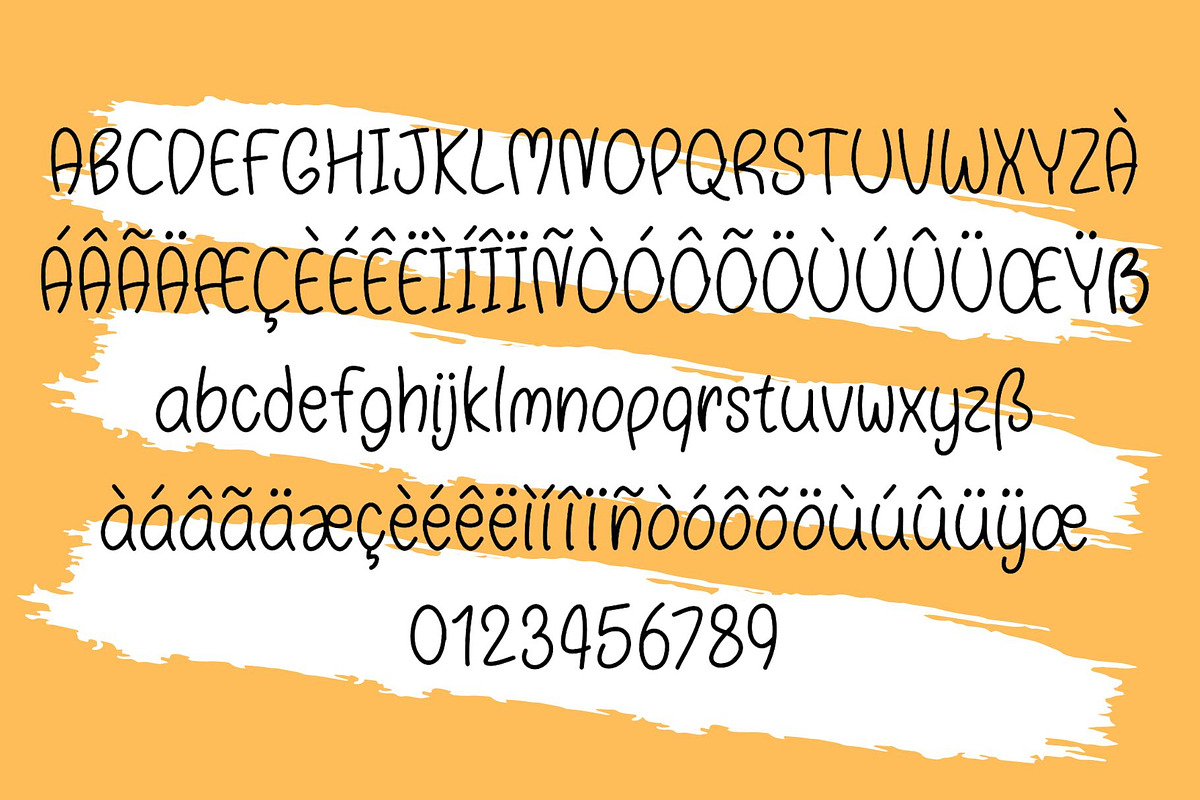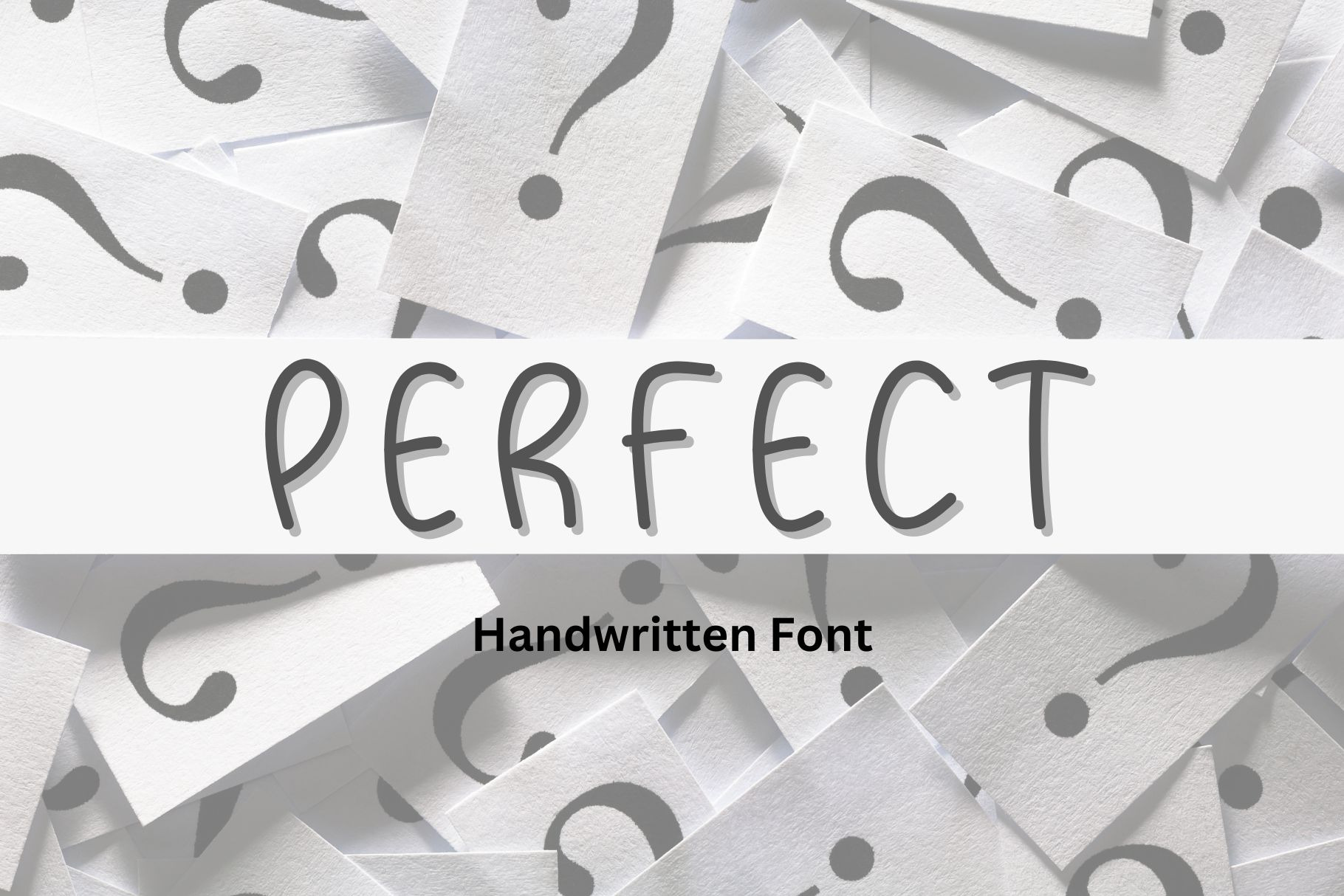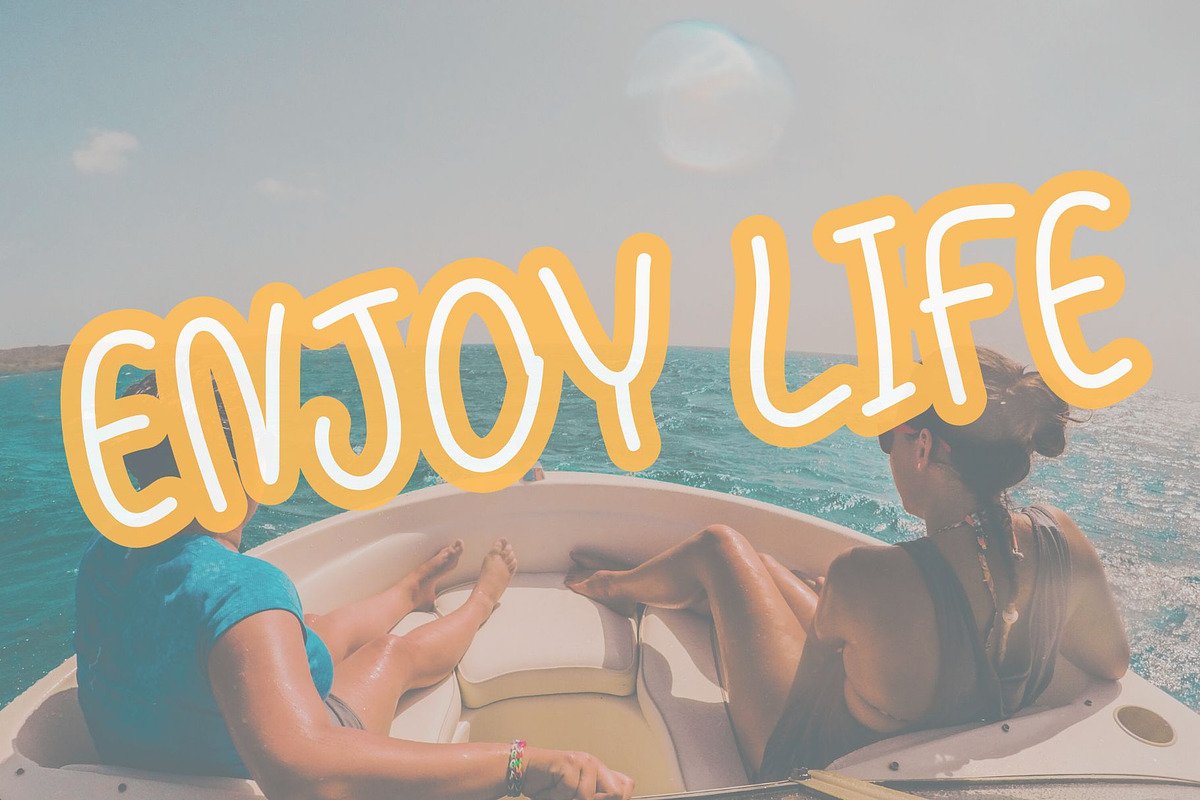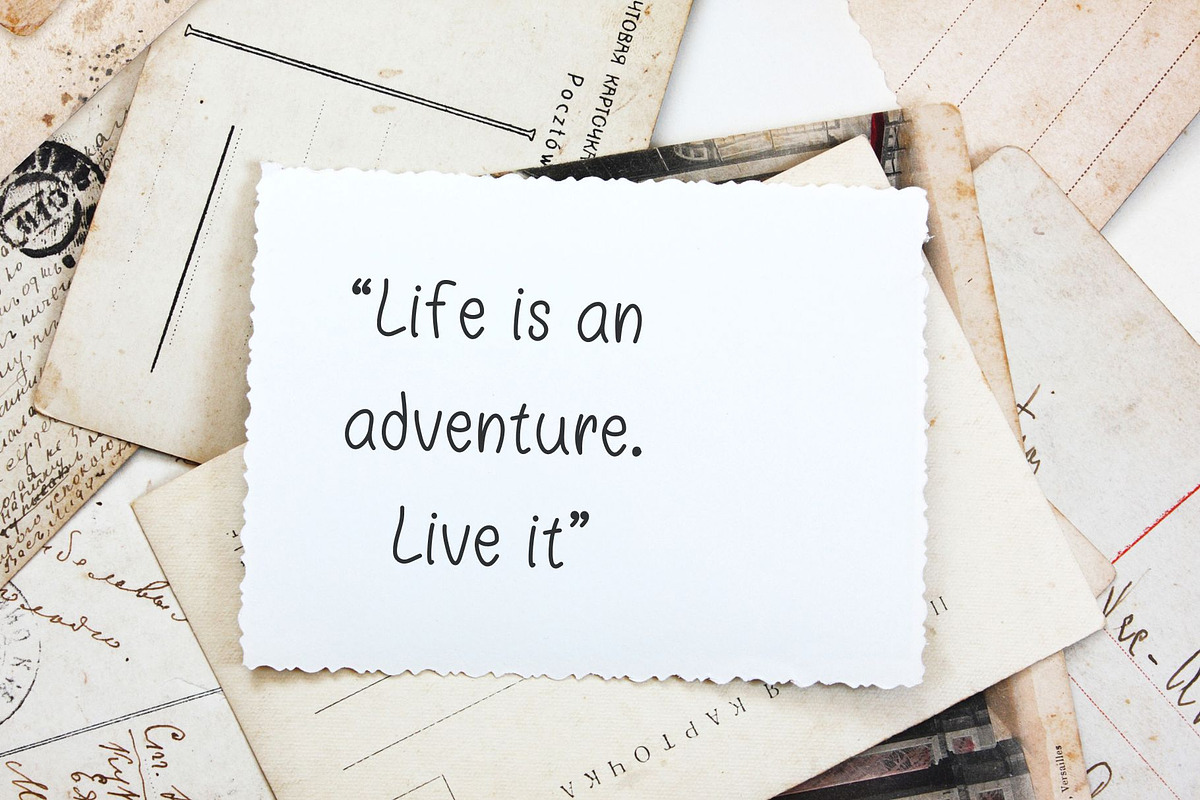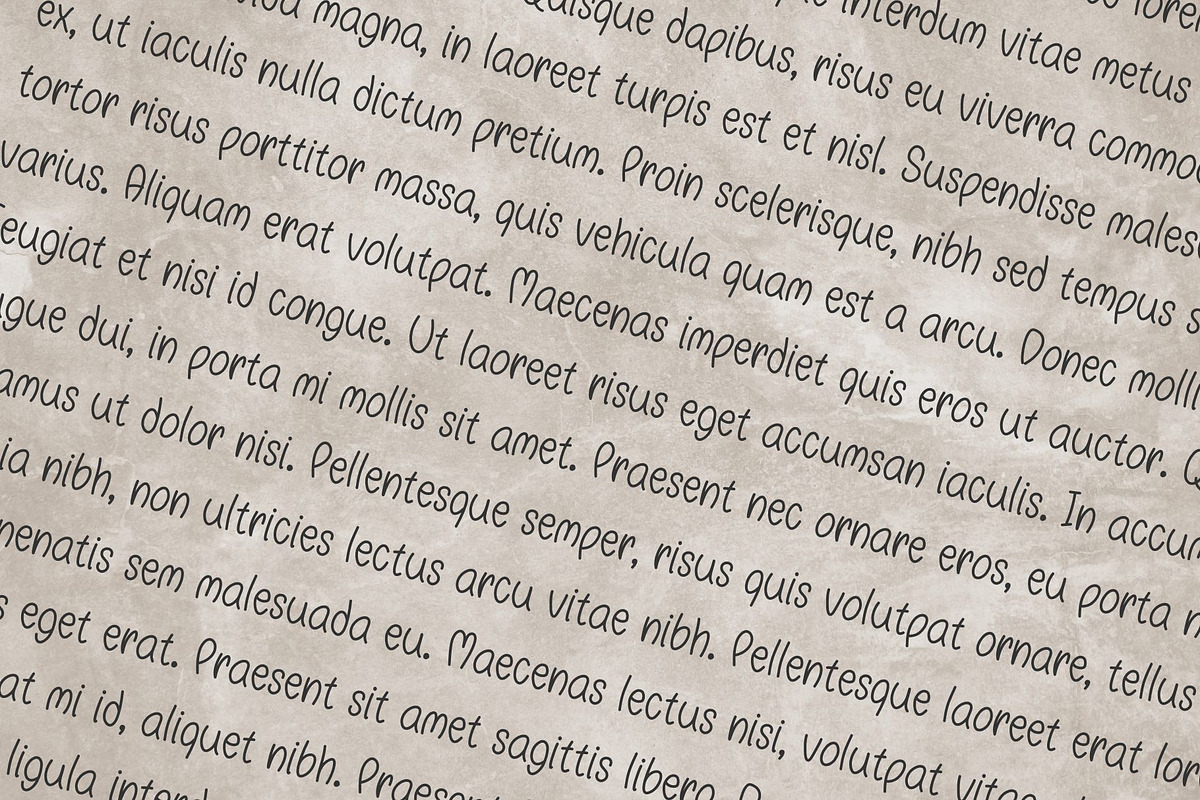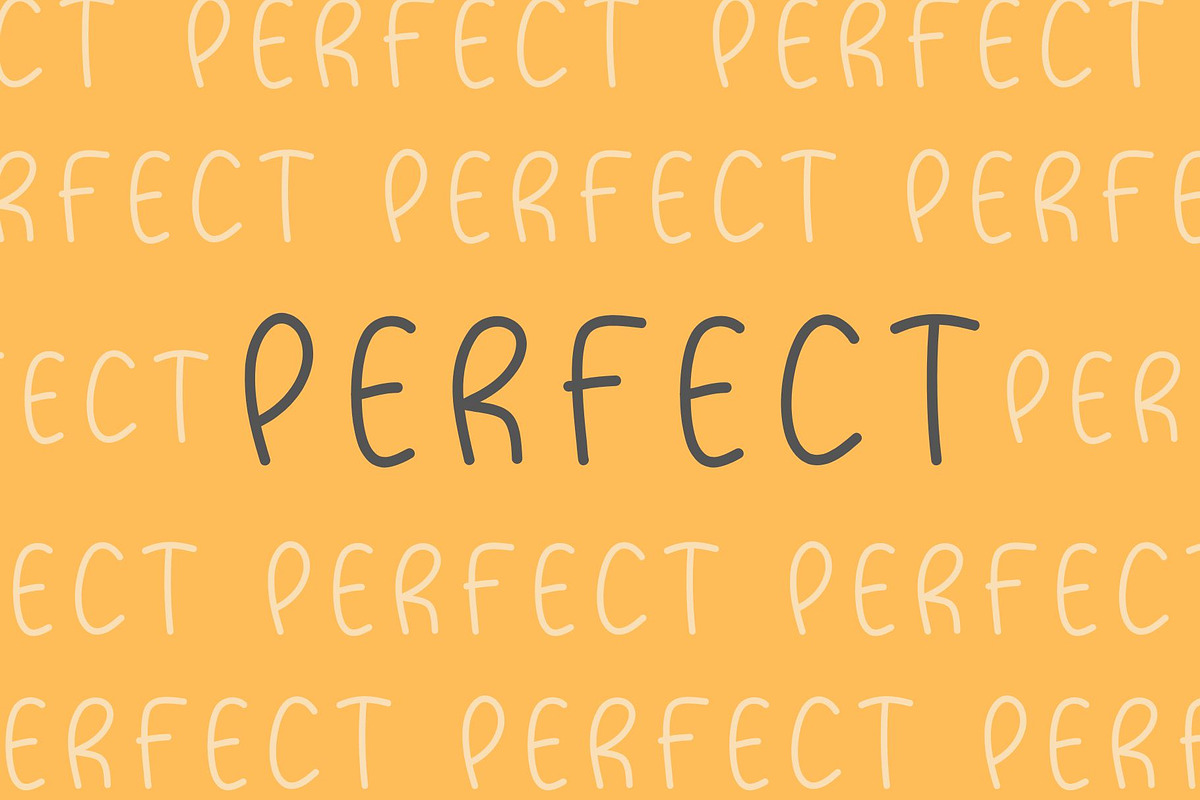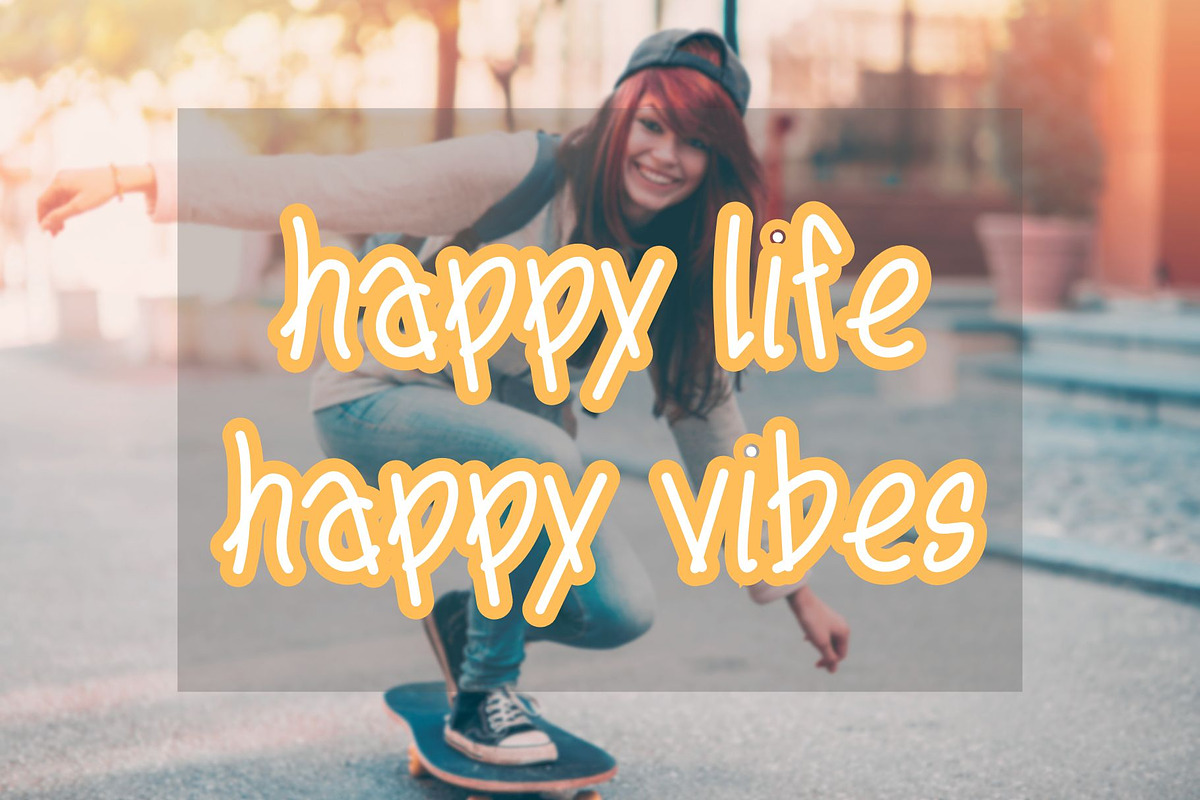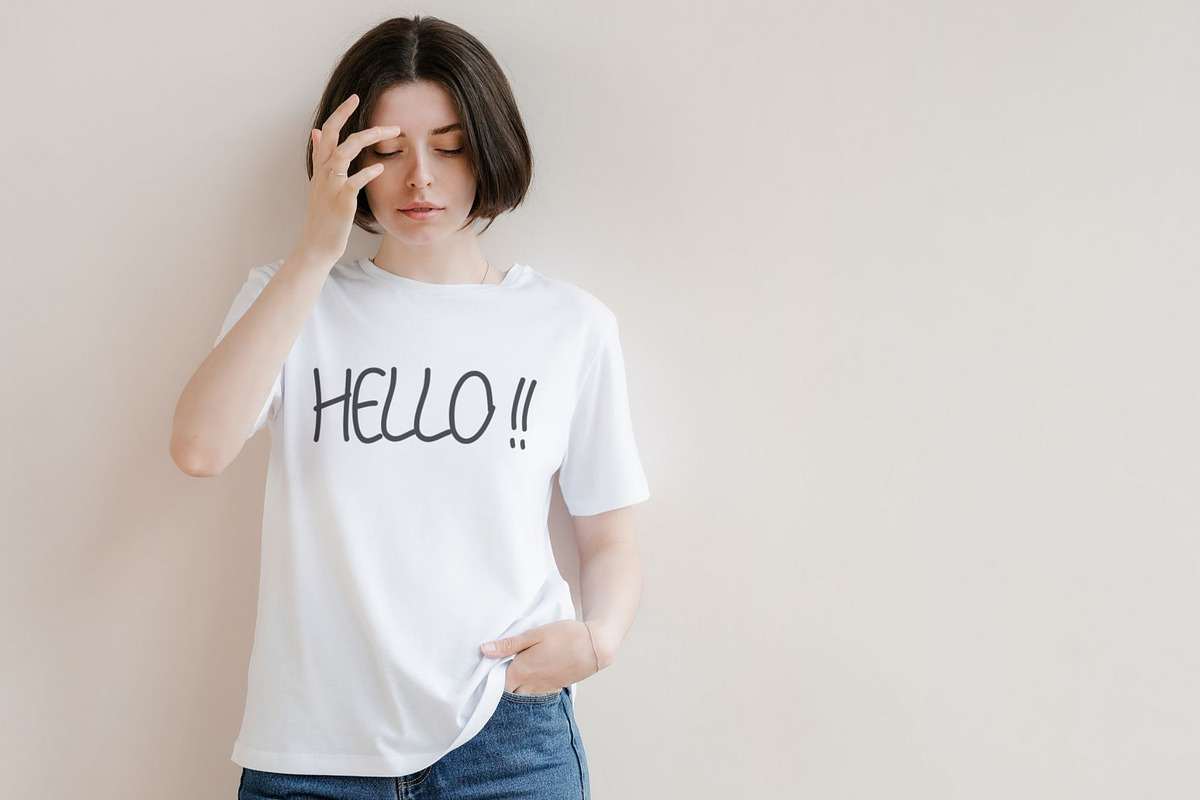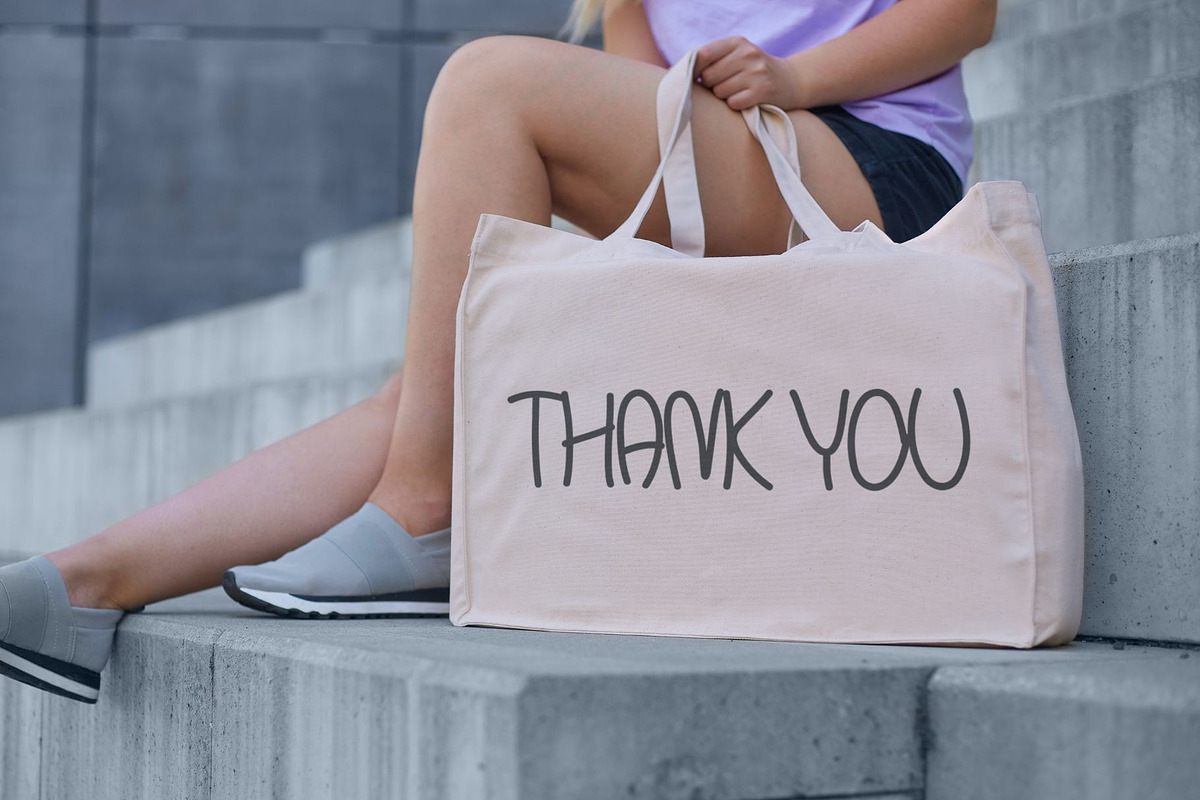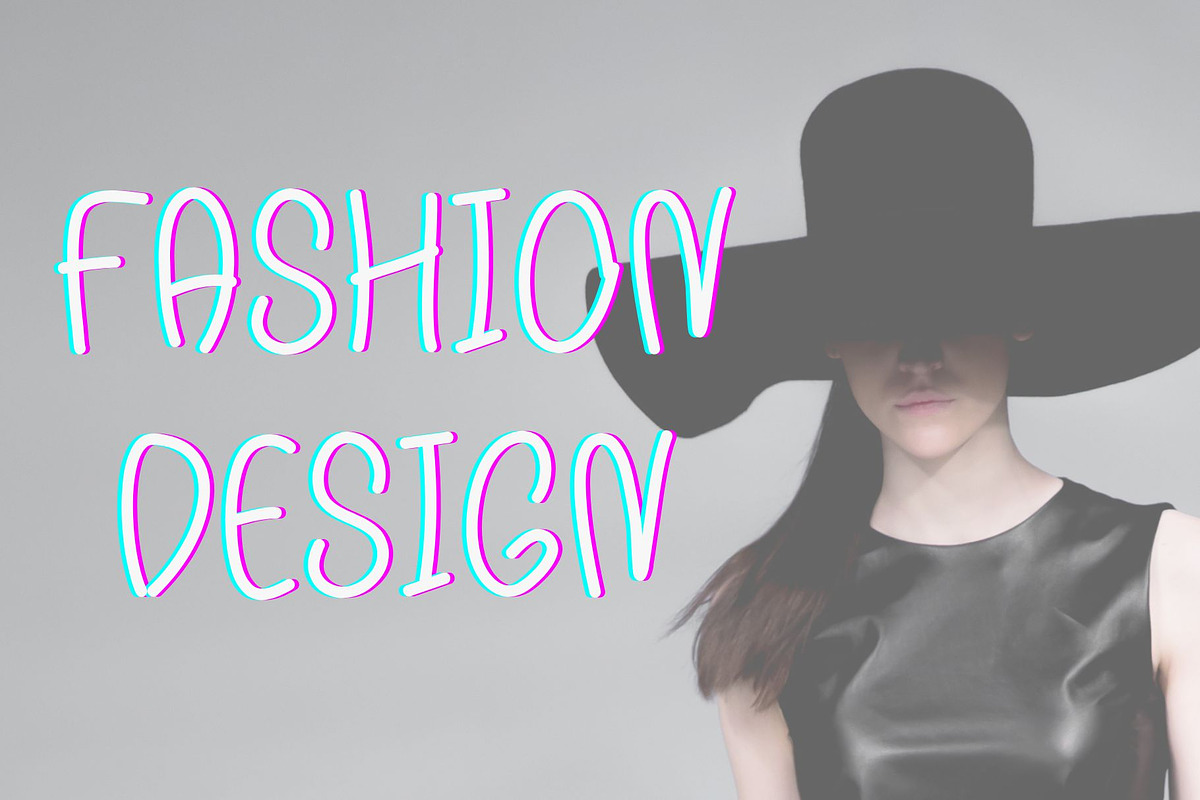
Perfect Handwriting font
Perfect Handwriting font that can be used within your documents for commercial and personal use! We design our fonts to have a simple.
Perfectly suitable for numerous uses such as digital note-taking, digital planners, quotations, banners, logos, product packaging, titles, headers, menu lists, etc.
Notes- This fonts include capital/lowercase letters and basic symbols.
Say hello to "Perfect" font :) Enjoy!!